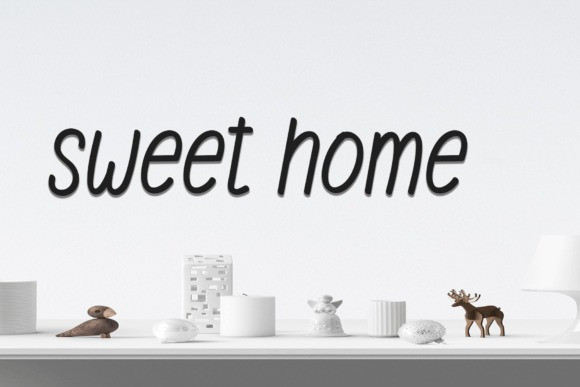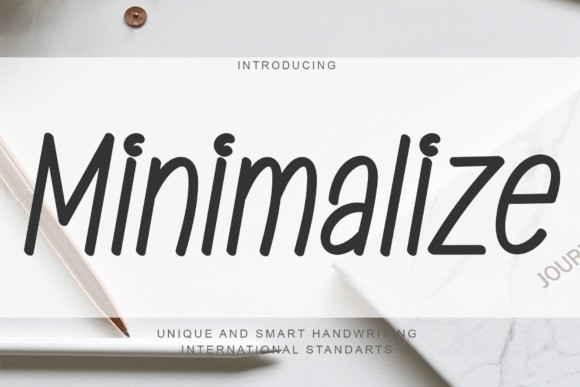
Minimalize Font
Minimalize Font is a fancy handwritten font that will give you extra creative work. This font is suitable for logo design, social media, movie titles, and book titles. Make stunning work with Minimalize font.